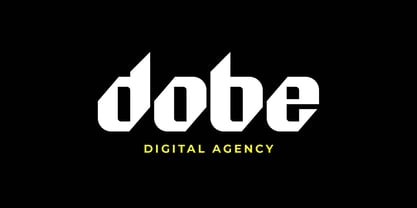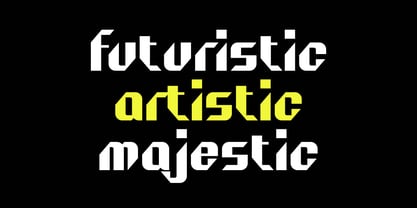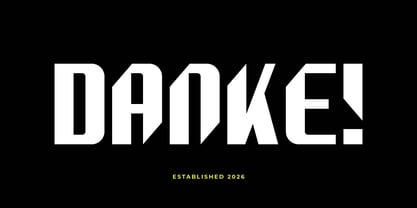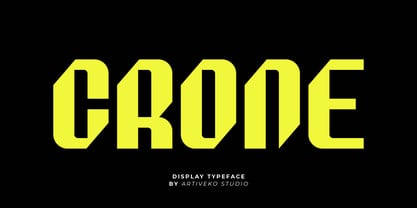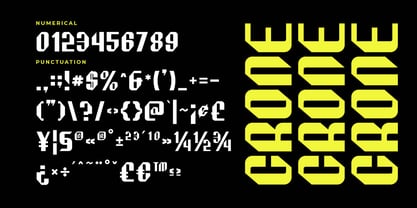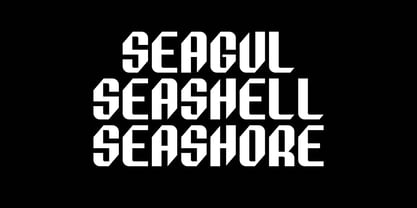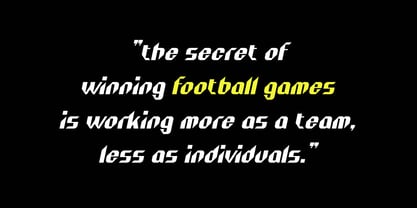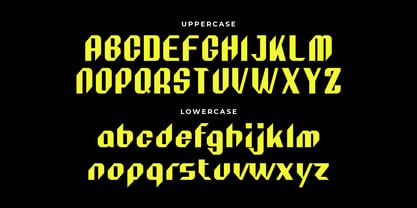
Crone
The Crone Font Family was designed by Iwan Alwan and published by Artiveko. Crone contains 2 styles and family package options. More about this family
Crone Sport is a bold and energetic display typeface inspired by competitive sports and athletic branding. Featuring strong letterforms, solid weight, and a dynamic presence, this font is designed to make a statement on jerseys, team logos, esports graphics, posters, merchandise, and promotional campaigns. Its powerful structure conveys speed, strength, and determination, making it ideal for football clubs, basketball teams, gym branding, racing visuals, fitness brands, and sports events. Crone Sport ensures high readability while delivering an aggressive visual impact in large headlines and statement typography. More than just a font, Crone Sport is crafted for champions and bold competition.